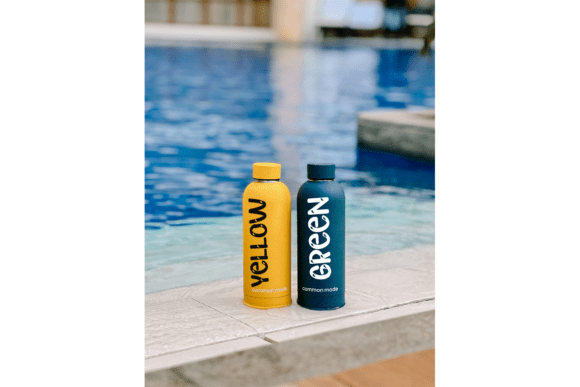
Introducing Birthday Kids Font: The Ultimate Celebration Companion
Are you tired of using the same old fonts for your designs? Do you want to add a touch of fun and excitement to your projects? Look no further than the Birthday Kids Font! This bold, cheerful display font is specifically designed to bring a whole lot of fun to your designs, making it perfect for birthday themes, party invitations, greeting cards, posters, apparel, social media graphics, and kids’ product packaging.
The Playful Spirit of Childhood Celebrations
Birthday Kids Font captures the playful spirit of childhood celebrations with its bubbly, slightly irregular letterforms and rounded corners. Each glyph is thoughtfully crafted to feel energetic and expressive, making it perfect for designs that are meant to be lighthearted, friendly, and full of joy. The font’s playful design is sure to bring a smile to anyone’s face, making it ideal for designs that require a touch of whimsy and fun.
Key Features of Birthday Kids Font
- Uppercase and Lowercase Characters: The font includes both uppercase and lowercase characters, giving you the flexibility to use it for a wide range of projects.
- Numerals, Punctuation, and Multilingual Support: The font also includes numerals, punctuation, and multilingual support, making it perfect for designs that require a little extra something.
- Decorative Dots: The decorative dots on select letters add an extra touch of whimsy, making it perfect for birthday themes and party invitations.
Birthday Kids Font is perfect for designers and crafters who want to add a touch of fun and excitement to their projects. Whether you’re designing for a toddler’s birthday bash, a classroom event, or a playful brand, this font is sure to make your text come alive with excitement and charm. The font’s versatility makes it perfect for a wide range of projects, from digital designs to print materials.
Ideas for Using Birthday Kids Font
- Birthday Party Invitations: Use Birthday Kids Font to create fun and playful birthday party invitations that set the tone for an unforgettable celebration.
- Kids’ Product Packaging: Add a touch of whimsy to kids’ product packaging with Birthday Kids Font, making it perfect for toy packaging, children’s books, and more.
- Social Media Graphics: Use Birthday Kids Font to create engaging social media graphics that are sure to grab attention and bring a smile to people’s faces.
- Greeting Cards: Create fun and playful greeting cards for special occasions, such as birthdays, graduations, and more.
Why Choose Birthday Kids Font?
So why choose Birthday Kids Font? Here are just a few reasons:
- Unique and Playful Design: Birthday Kids Font has a unique and playful design that’s sure to stand out from the crowd.
- Highly Versatile: The font is highly versatile, making it perfect for a wide range of projects and designs.
- Easy to Use: Birthday Kids Font is easy to use and comes with a simple, user-friendly design.
In conclusion, Birthday Kids Font is the perfect addition to any design project that requires a touch of fun and excitement. With its playful design, highly versatile features, and ease of use, this font is sure to bring a smile to anyone’s face. Whether you’re a designer, crafter, or DIY enthusiast, Birthday Kids Font is a must-have font that’s sure to make your text come alive with excitement and charm.